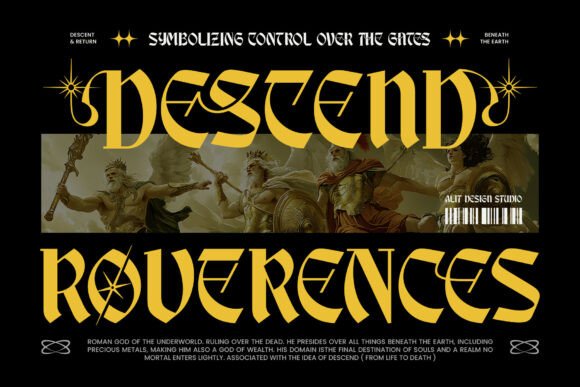
Break Roman Font: A Stylized Display Typeface that Redefines Modern Typography
In the world of typography, few fonts have managed to capture the essence of both medieval grandeur and modern sophistication. Break Roman, a highly stylized display typeface developed by Alit Design Studio, is one such font that boldly merges the gothic soul of blackletter tradition with the sharp precision of modern serif design. This article will explore the unique features, design elements, and versatility of Break Roman, making it a typographic experience like no other.
The Genesis of Break Roman
Break Roman is more than just a font – it’s a typographic experience infused with epic drama, rebellious flair, and meticulous craftsmanship. Developed by Alit Design Studio, this typeface is designed to evoke a visual language that transcends centuries, bringing medieval gravitas into the heart of contemporary visual culture.
The design of Break Roman is rooted in blackletter aesthetics, characterized by vertical stress, sharp angles, and dark elegance. However, what sets it apart is the layering of modern serif design elements, making it highly legible, stylishly aggressive, and versatile across genres.
Design Elements and Features
Break Roman’s intricate letterforms are designed with a nod to illuminated manuscripts, but updated with assertive modernity that speaks fluently in both luxury editorial layouts and urban streetwear branding. Some of the key design elements and features of Break Roman include:
- Blackletter Aesthetics: Vertical stress, sharp angles, and dark elegance are all hallmarks of Break Roman’s blackletter foundation.
- Modern Serif Design: The font’s geometry and balance are inspired by modern serif design, making it highly legible and versatile.
- Swashes: Swashes weave and flourish through the characters like celestial ribbons, adding a touch of elegance and sophistication.
- Custom Starburst Glyphs: Custom starburst glyphs add a touch of mysticism and ornamentation, perfect for branding, album covers, or spiritual/occult aesthetics.
Versatility and Applications
Break Roman’s unique blend of medieval grandeur and modern sophistication makes it a versatile font suitable for a wide range of applications. Some of the potential uses of Break Roman include:
- Luxury Editorial Layouts: Break Roman’s elegant and sophisticated design makes it perfect for high-end editorial layouts, such as fashion magazines or luxury lifestyle publications.
- Urban Streetwear Branding: The font’s bold and assertive design also makes it suitable for urban streetwear branding, adding a touch of edginess and sophistication to any brand.
- Branding and Advertising: Break Roman’s unique design elements, such as swashes and custom starburst glyphs, make it perfect for branding and advertising applications, such as logos, billboards, or magazine ads.
- Album Covers and Music Branding: The font’s mystical and ornate design elements also make it suitable for album covers and music branding, adding a touch of drama and sophistication to any music project.
The Future of Typography: Break Roman and Beyond
Break Roman is more than just a font – it’s a typographic experience that redefines modern typography. Its unique blend of medieval grandeur and modern sophistication makes it a versatile font suitable for a wide range of applications. As typography continues to evolve, Break Roman is poised to play a significant role in shaping the visual language of the future.
With its intricate letterforms, elegant swashes, and custom starburst glyphs, Break Roman is a font that will continue to inspire designers, artists, and typographers for years to come. Whether used in luxury editorial layouts, urban streetwear branding, or music branding, Break Roman is a font that will add a touch of drama, sophistication, and elegance to any project.
In conclusion, Break Roman is a highly stylized display typeface that boldly merges the gothic soul of blackletter tradition with the sharp precision of modern serif design. With its intricate letterforms, elegant swashes, and custom starburst glyphs, Break Roman is a typographic experience like no other. Its versatility, elegance, and sophistication make it a font suitable for a wide range of applications, from luxury editorial layouts to urban streetwear branding.
As typography continues to evolve, Break Roman is poised to play a significant role in shaping the visual language of the future. Whether you’re a designer, artist, or typographer, Break Roman is a font that will inspire and elevate your work, adding a touch of drama, sophistication, and elegance to any project.